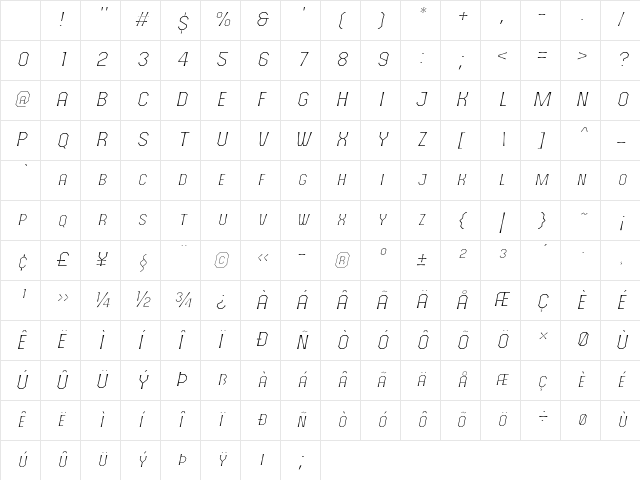
Complete The October Two Light Italic glyph index. Displaying only characters natively supported by The October Two Light Italic font.
The October Two Light is a composed and adaptable typeface that performs quietly and consistently across a wide range of design contexts. The slanted form adds forward momentum and visual energy. Its slender proportions lend an understated elegance to any composition.
Pro Tip: Use The October Two Light for emphasis, pull quotes, and subheadings where its slanted energy can add rhythm to the layout.